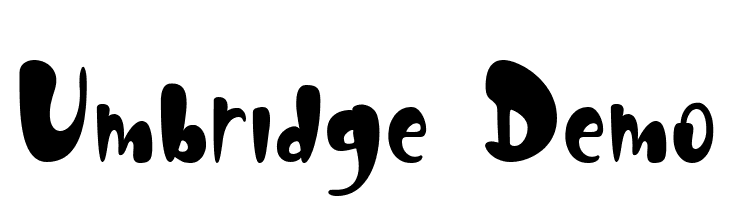
( zigzag - Bodat Na Ngalian )
A bold, geometric font with sharp angles and a modern style.
( zigzag - Bodat Na Ngalian )
A bold, geometric font with a futuristic and edgy design.
( zigzag - Bodat Na Ngalian )
A modern, striped font with geometric shapes and bold lines.
( zigzag - Bodat Na Ngalian )
A bold, geometric font with sharp angles and a futuristic style.
( zatari - TARY meutia - www.behance.net/tarymeutiaa625 )
A bold, rugged font with a hand-drawn, vintage style.
( youngtype - www.creativefabrica.com/designer/youngtype/ )
A dynamic, expressive handwritten font with fluid strokes and artistic flair.
( xpeehdroox - Pedro Kisuco - twitter.com/xpeehdroox )
A bold, hand-drawn font with a playful and irregular style.
( www.sparkybuddy.com - David Pustansky - www.sparkybuddy.com/fonts )
A bold, illustrative font depicting the NATO phonetic alphabet with unique graphics.
( www.sparkybuddy.com - David Pustansky - www.sparkybuddy.com/fonts )
A cursive, handwritten font with fluid and expressive strokes.
( www.sparkybuddy.com - David Pustansky - www.sparkybuddy.com/fonts )
A decorative font made from iconic optical illusion illustrations.
( www.sparkybuddy.com - David Pustansky - www.sparkybuddy.com/fonts )
A playful font made entirely of fruit illustrations, perfect for creative projects.
( www.sparkybuddy.com - David Pustansky - www.sparkybuddy.com/fonts )
A display font made from iconic art-themed illustrations forming each letter.
( wraith wolf - boxed in - shadowdesign.tumblr.com/ )
A modern, geometric font with clean lines and a minimalist style.
( wraith wolf - boxed in - shadowdesign.tumblr.com/ )
A geometric, modern font with a boxy, technical appearance.
( wraith wolf - boxed in - shadowdesign.tumblr.com/ )
A futuristic, geometric font with sharp angles and bold presence.
( work2survive - Manuel Campagnoli )
A bold, modern font with geometric and playful elements.
( work2survive - Manuel Campagnoli )
A modern, playful font with geometric and organic elements.
( work-it.it - www.work-it.it )
A modern, geometric font with thin lines and angular cuts, offering a sleek and futuristic appearance.
( work-it.it - www.work-it.it )
A sleek, modern font with geometric and futuristic elements.
( wonoayu79 - Agung Harto - www.creativefabrica.com/designer/wny79/ )
An elegant, flowing script font with artistic flair.
( wonoayu79 - Agung Harto - www.creativefabrica.com/designer/wny79/ )
A whimsical and elegant cursive font with flowing, graceful strokes.
( winty5 - Noah The Awesome )
A bold, geometric font with a futuristic and digital aesthetic.
( windsplite - windsplite.com/ )
A modern, geometric font with thin lines and sharp angles, offering a futuristic and elegant look.
( wiccked stepmother fonts - Melanie Cook - wiccked.etsy.com/ )
A playful, hand-drawn font with rounded, bold characters.
( wiccked stepmother fonts - Melanie Cook - wiccked.etsy.com/ )
A playful, hand-drawn font with a sketch-like, textured appearance.
( wiccked stepmother fonts - Melanie Cook - wiccked.etsy.com/ )
A playful, handwritten font with rounded edges and consistent stroke width.
( weknow - Wino S Kadir - www.creativefabrica.com/designer/weknow/ )
A bold, hollow, geometric font with a futuristic style.
( weknow - Wino S Kadir - www.creativefabrica.com/designer/weknow/ )
A bold, geometric font with high contrast and a modern, dynamic style.
( weknow - Wino S Kadir - www.creativefabrica.com/designer/weknow/ )
A bold, modern geometric font with rounded edges and consistent stroke width.
( weknow - Wino S Kadir - www.creativefabrica.com/designer/weknow/ )
A bold, geometric slab serif font with Western and Eastern influences.
( weknow - Wino S Kadir - www.creativefabrica.com/designer/weknow/ )
A bold, geometric hollow font with a modern, digital aesthetic.
( weknow - Wino S Kadir - www.creativefabrica.com/designer/weknow/ )
A bold, hollow, inverse font with a modern, geometric style.
( weknow - Wino S Kadir - www.creativefabrica.com/designer/weknow/ )
A bold, geometric font with a futuristic and angular design.
( weknow - Wino S Kadir - www.creativefabrica.com/designer/weknow/ )
A bold, angular display font with a modern, edgy aesthetic.
( weknow - Wino S Kadir - www.creativefabrica.com/designer/weknow/ )
A bold, geometric font with sharp, angular lines and a modern look.